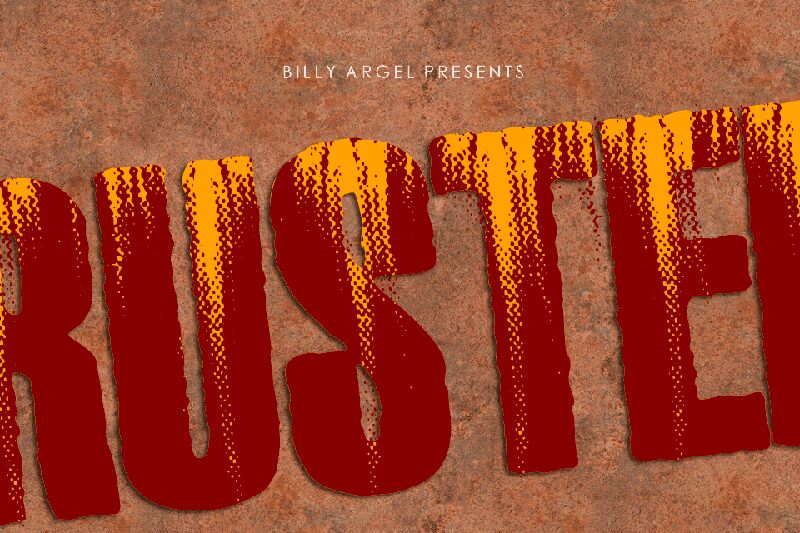
RUSTED is a bold, eroded display font designed by Billy Argel Fonts. With its extra-condensed width, this typeface is perfect for projects that require a strong and impactful visual presence. RUSTED's rough edges and distressed texture give it an industrial feel, making it ideal for use in branding or packaging designs for products related to construction, automotive or tools. Its boldness also makes it suitable for headlines and titles in posters or advertisements that require attention-grabbing typography. Whether you're looking to add character to your design project or create a gritty aesthetic, RUSTED has got you covered!
Three overlapping fonts!